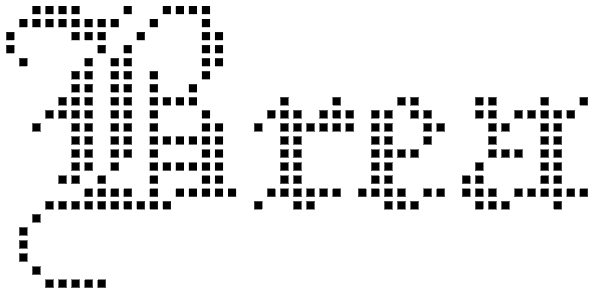
Brea
Toying with antiquity in two realms, Brea uses primitive dot matrix, the first electronic print, as a medium for expressing a once intensely manual Old English hand. These incongruous historical allusions update the Middle Ages, but places them...
Brea
Brea Light